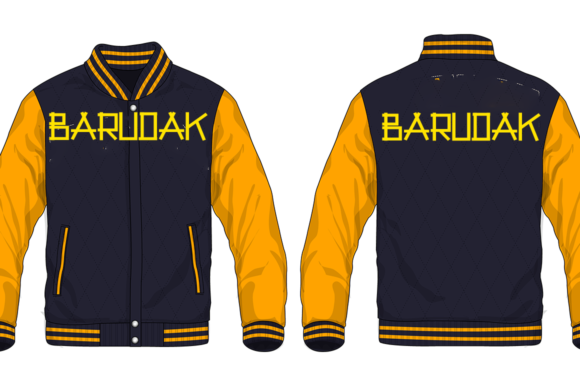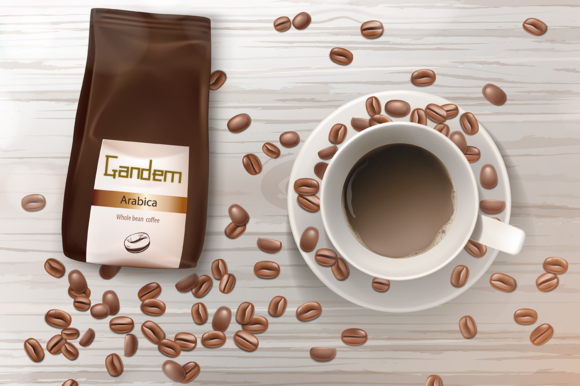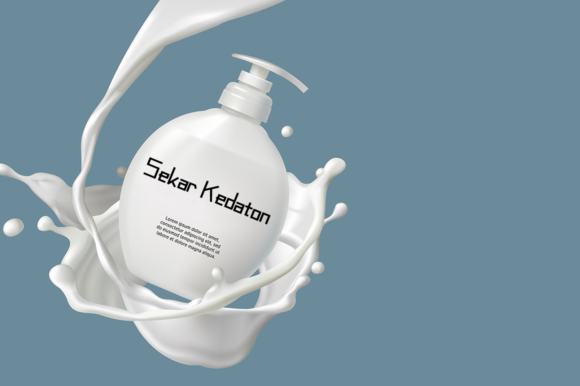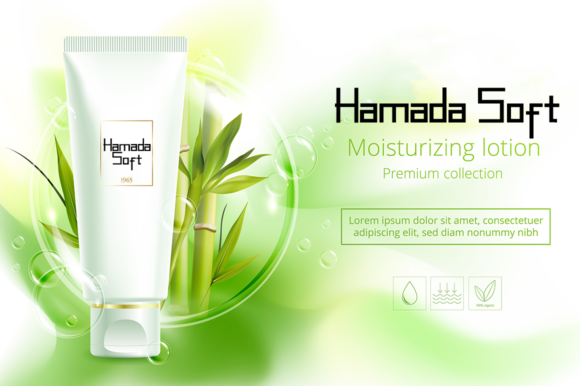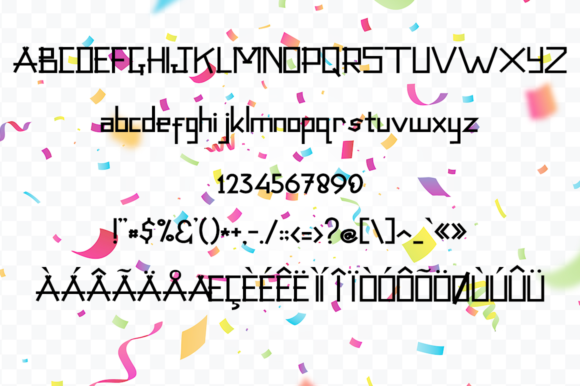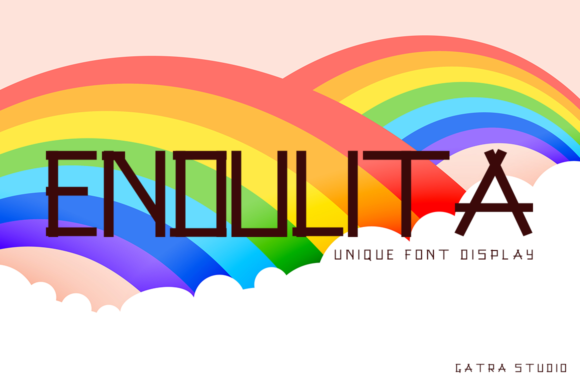
Introducing Endulita Font: The Cool, Quirky Display Font You Need
Are you tired of using the same old fonts in your designs? Look no further than Endulita Font, a cool, squared lettered, and uniquely shaped display font that’s sure to add a touch of quirkiness to your projects. In this article, we’ll dive into the world of Endulita Font, exploring its features, benefits, and uses, and why it’s a must-have for designers and crafters alike.
What is Endulita Font?
Endulita Font is a display font that boasts a distinctive, squared lettered design with a quirky twist. Its unique shape and style make it perfect for adding a touch of personality to your designs, whether you’re working on a logo, poster, or social media graphic. This font is incredibly versatile and can be used in a wide variety of contexts, from digital designs to print materials.
Key Features of Endulita Font
- Unique and Quirky Design: Endulita Font’s squared lettered design and quirky shape make it stand out from other fonts.
- Highly Versatile: This font can be used in a wide range of contexts, from digital designs to print materials.
- Easy to Read: Despite its quirky design, Endulita Font is easy to read, making it perfect for use in headlines, titles, and other display text.
- Scalable: Endulita Font is designed to be scalable, ensuring that it looks great at any size.
Benefits of Using Endulita Font
So why should you choose Endulita Font for your next design project? Here are just a few benefits of using this amazing font:
- Adds Personality to Your Designs: Endulita Font’s quirky design adds a touch of personality to your designs, setting them apart from the crowd.
- Perfect for Display Text: This font is designed specifically for display text, making it perfect for use in headlines, titles, and other attention-grabbing text.
- Easy to Pair with Other Fonts: Endulita Font pairs well with a wide range of other fonts, making it easy to create a cohesive look.
- Great for Branding and Identity: The unique design of Endulita Font makes it perfect for use in branding and identity projects, such as logos and business cards.
Uses for Endulita Font
Endulita Font is incredibly versatile and can be used in a wide range of design projects, including:
- Logos and Branding: The unique design of Endulita Font makes it perfect for use in logos and branding projects.
- Posters and Flyers: This font is great for use in posters and flyers, adding a touch of quirkiness to your designs.
- Social Media Graphics: Endulita Font is perfect for use in social media graphics, such as Facebook and Twitter headers.
- Business Cards and Stationery: The font’s unique design makes it great for use in business cards and stationery.
Tips for Using Endulita Font
Here are a few tips for getting the most out of Endulita Font:
- Use it for Display Text: Endulita Font is designed specifically for display text, so use it for headlines, titles, and other attention-grabbing text.
- Experiment with Colors: The font’s unique design looks great in a wide range of colors, so don’t be afraid to experiment.
- Pair it with Other Fonts: Endulita Font pairs well with a wide range of other fonts, so try pairing it with some of your favorite fonts.
In conclusion, Endulita Font is a cool, quirky display font that’s perfect for designers and crafters looking to add a touch of personality to their projects. Its unique design, versatility, and ease of use make it a must-have for anyone looking to take their designs to the next level. So why not give Endulita Font a try and see the difference it can make in your designs?